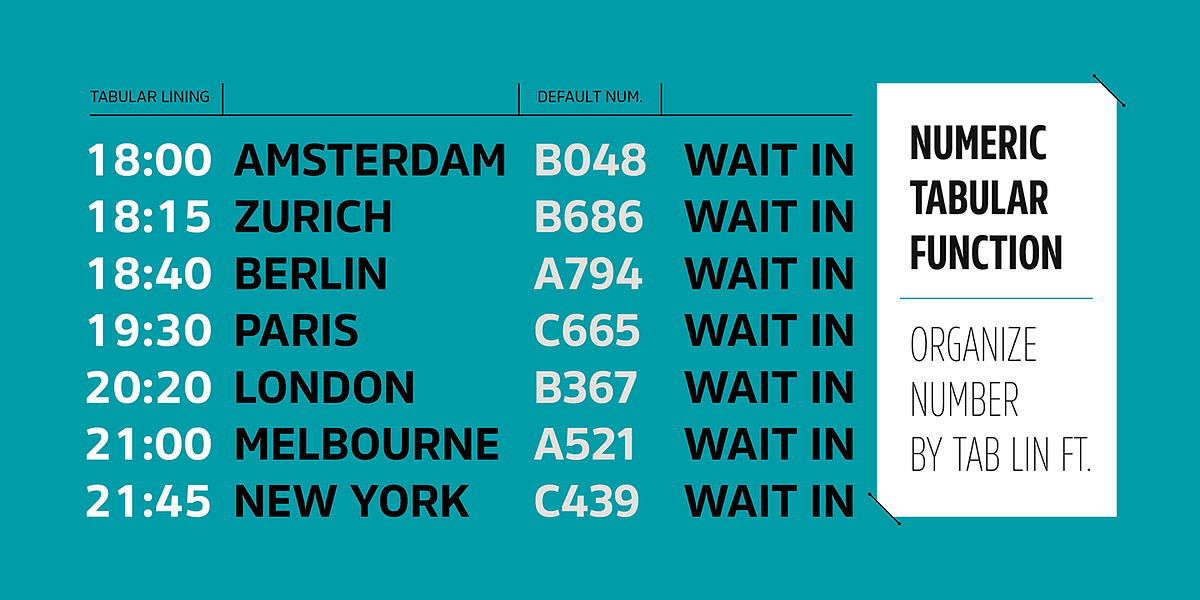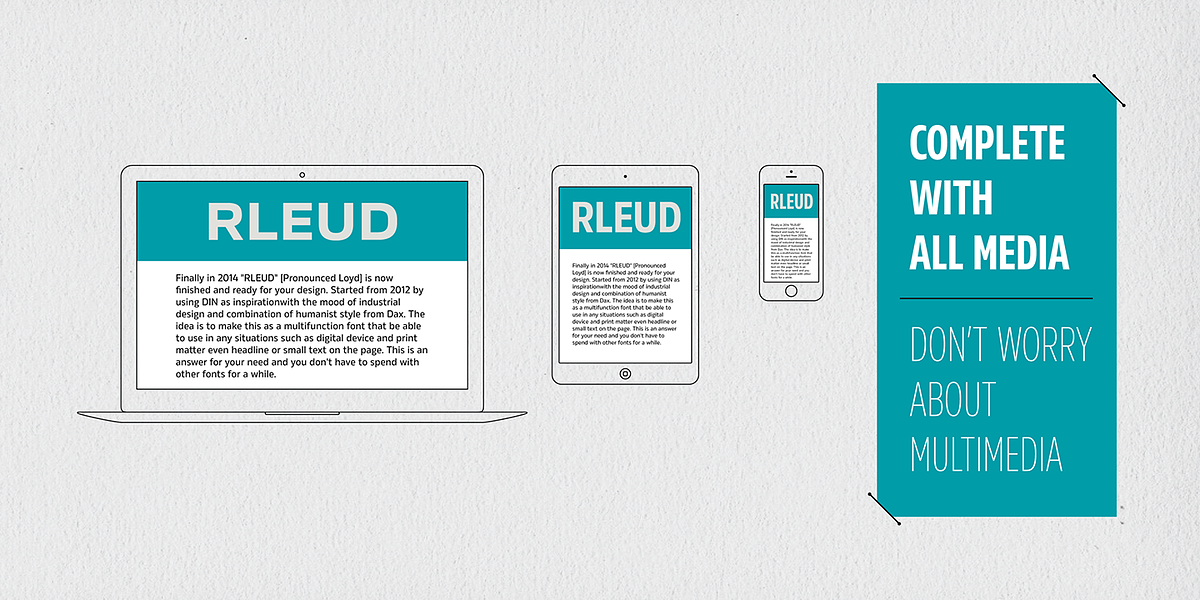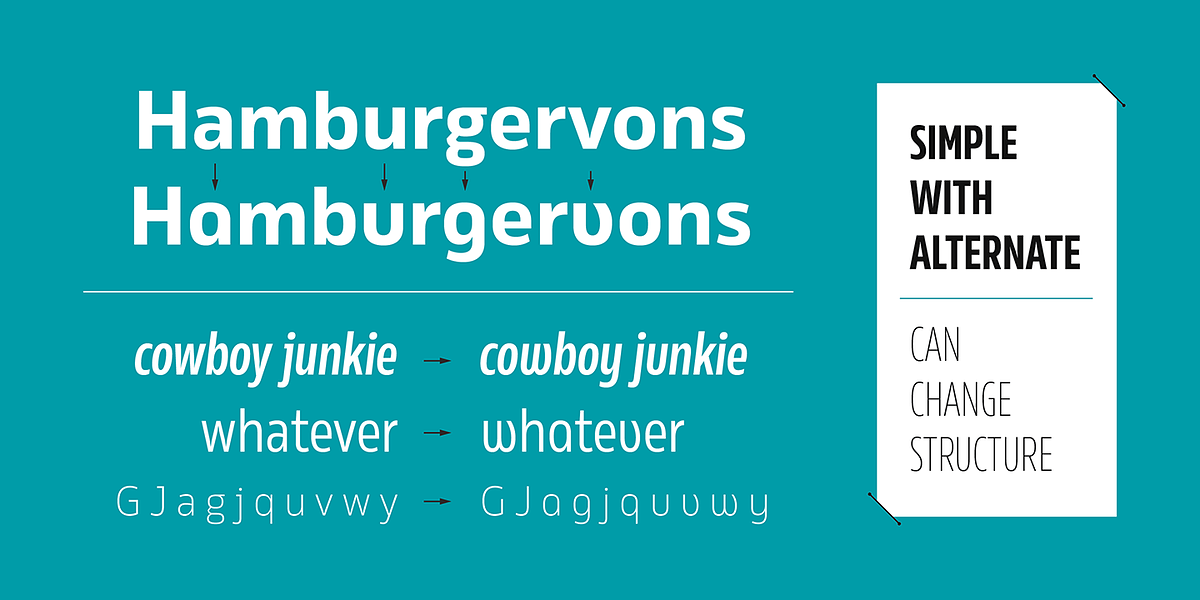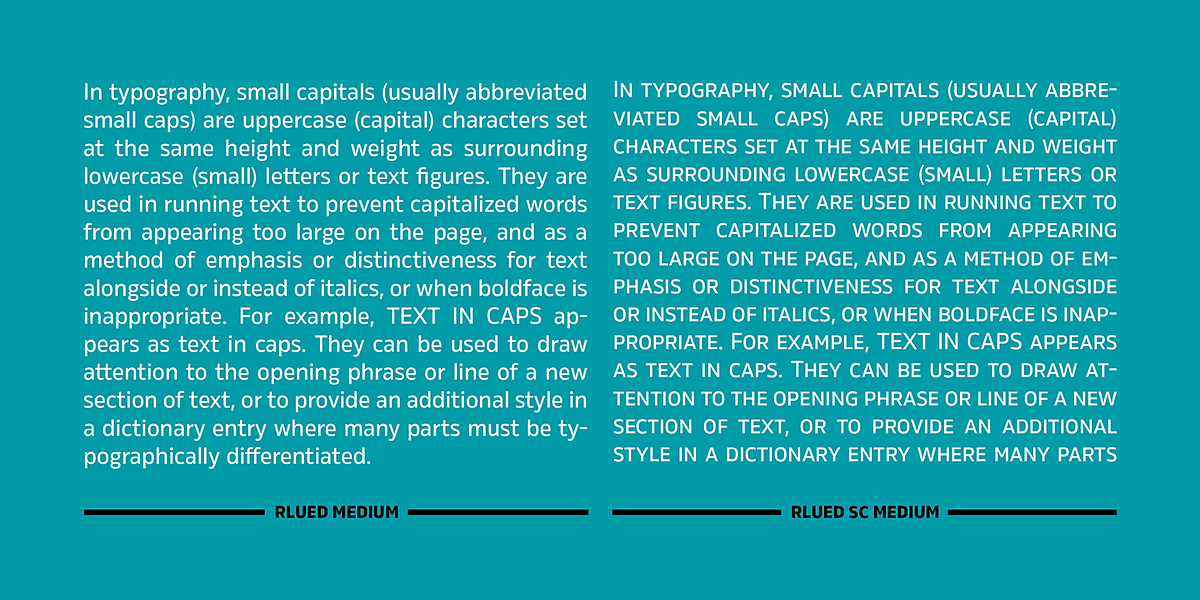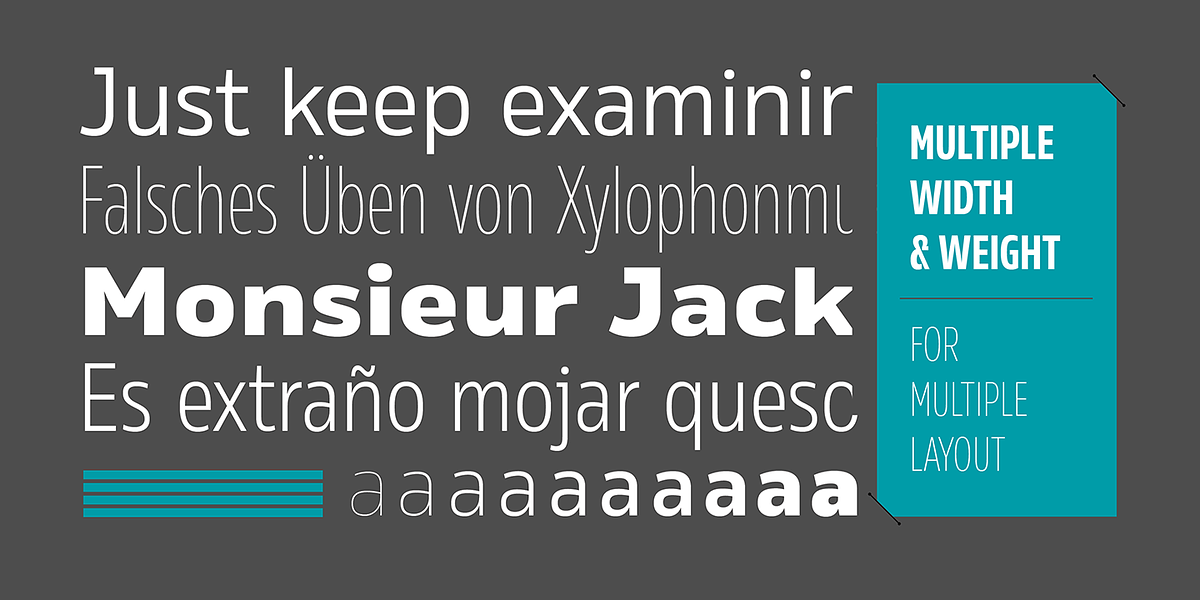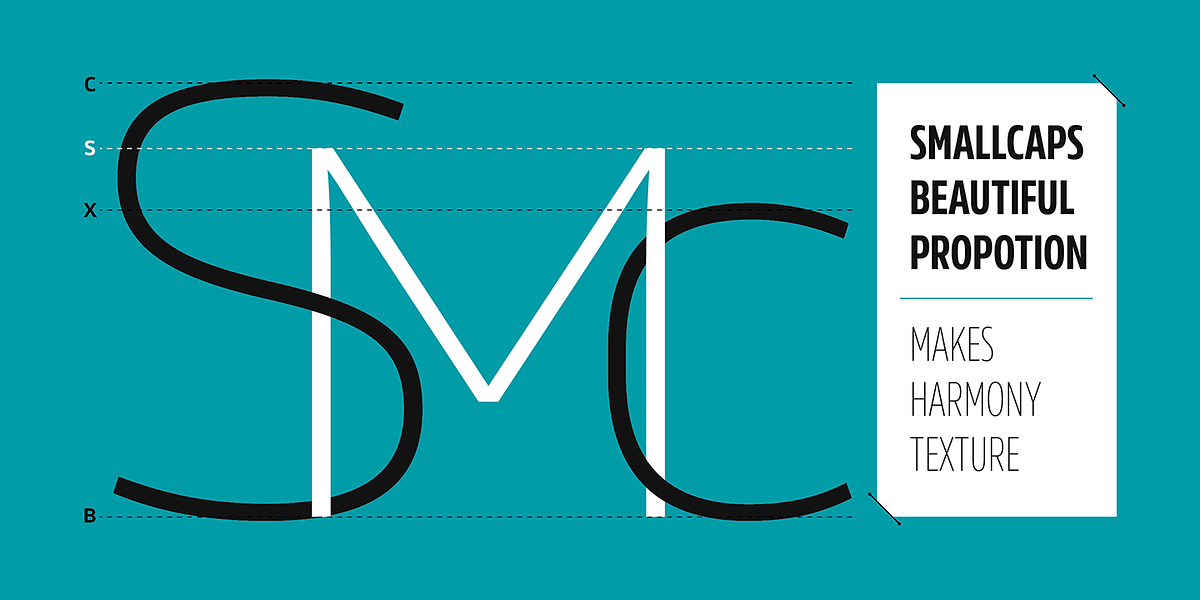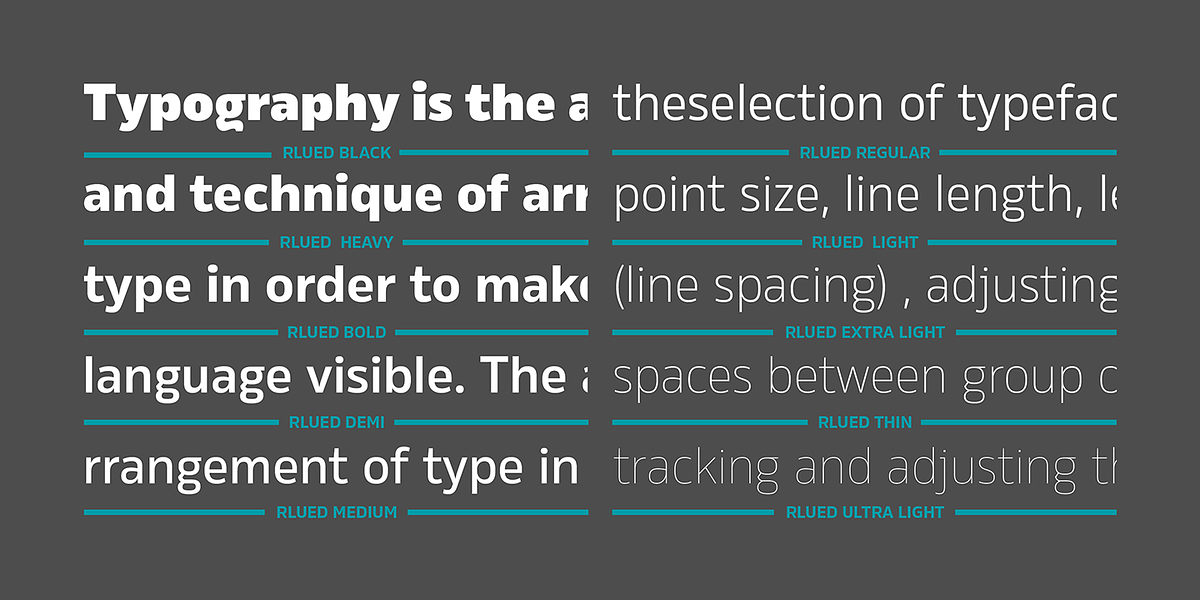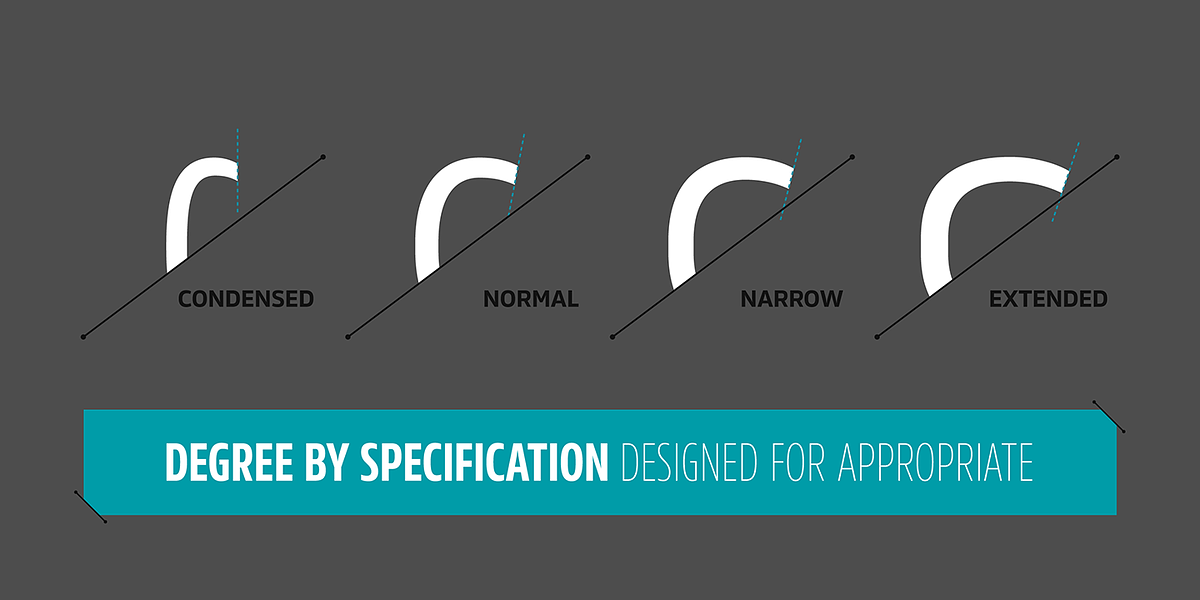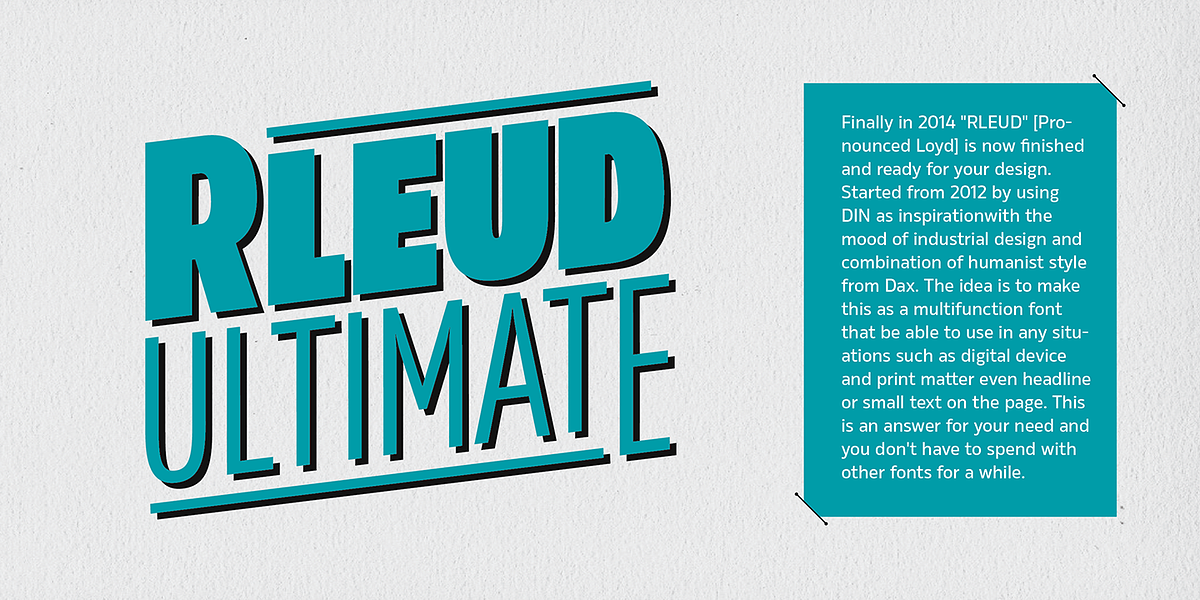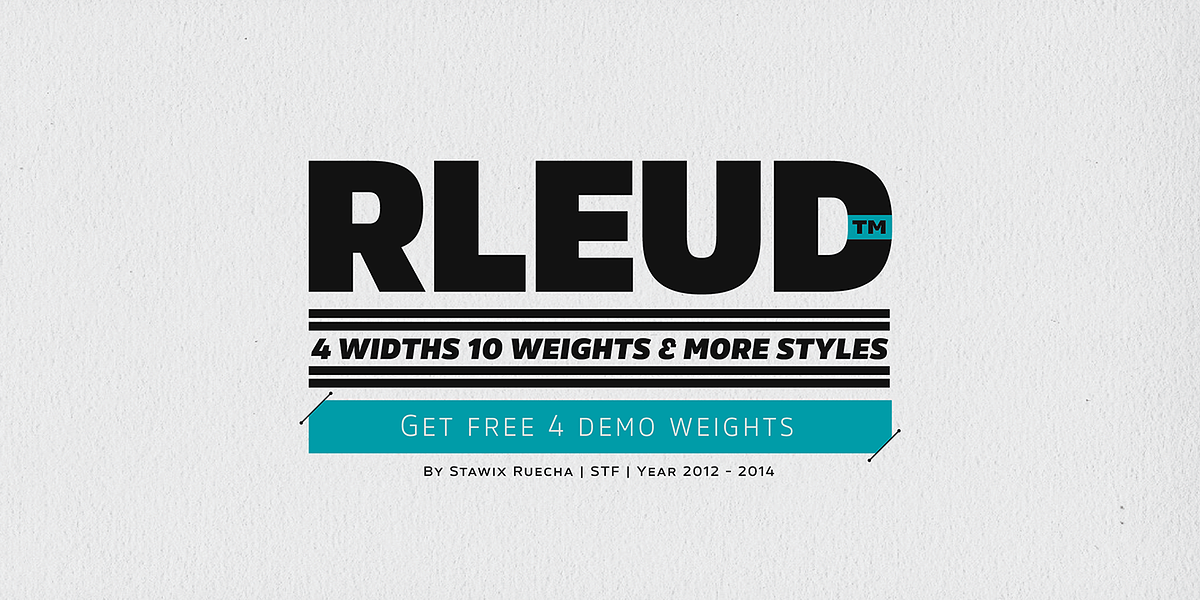
Rleud
RLEUD is a comprehensive grotesque sans serif typeface family inspired by DIN and Dax. It offers 10 weights with matching italics, as well as four widths: normal, condensed, narrow, and extended. The font includes OpenType features such as alternate styling letters, tabular numbers, and additional ligatures. Its versatility makes it suitable for both headlines and body text in various design applications.